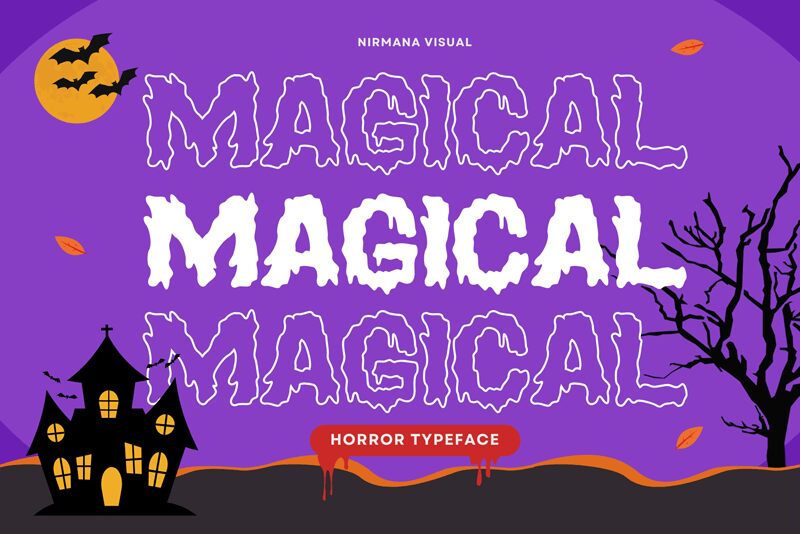
Magical Horror font by Nirmana Visual is a free Halloween display font. Its letters look slashed and dripping, like ink crawling down a wall-thick, ragged outlines create a pulpy, haunted texture that reads loud even from a distance. The rhythm snaps between chunky strokes and gnarly edges, giving headlines a visceral, spooky thump that jumps off dark backgrounds.
Using Magical Horror, you can conjure haunted house flyers, party posters, trick-or-treat tote designs, streaming thumbnails, seasonal merch, stickers, and social media promos. This free font shines at big sizes with a touch of extra tracking to let the drips breathe. Pair it with a clean geometric sans for body copy to keep the scares legible and the vibe cohesive.